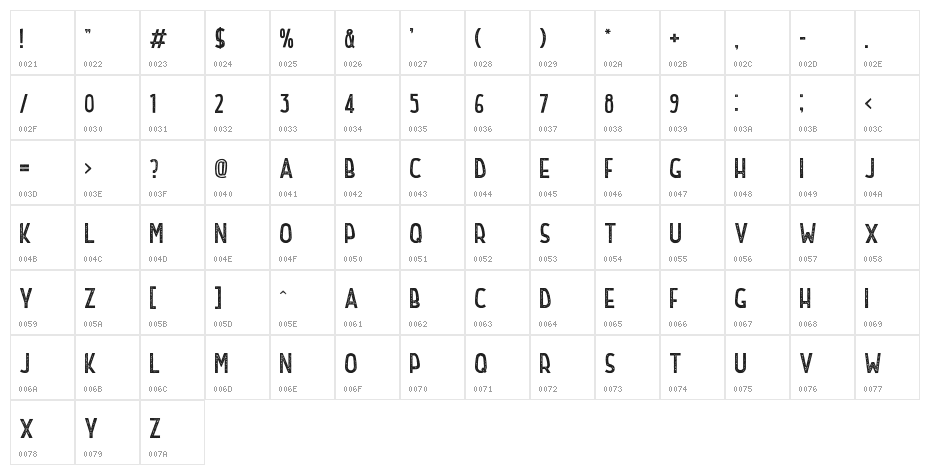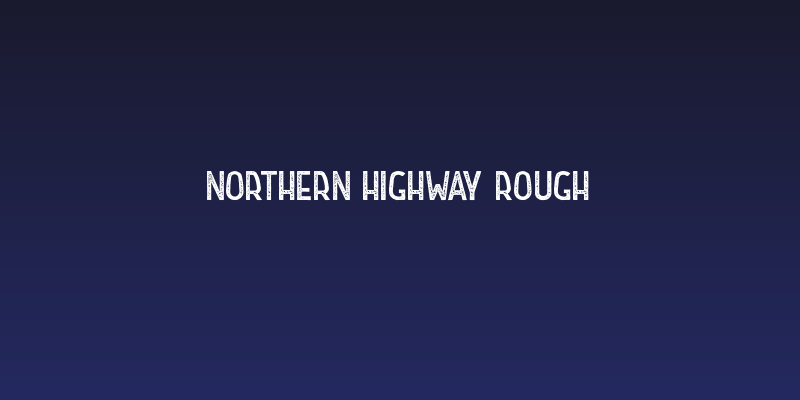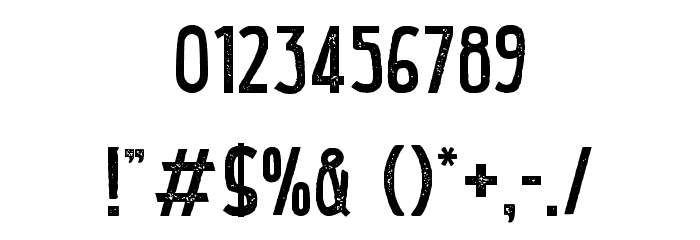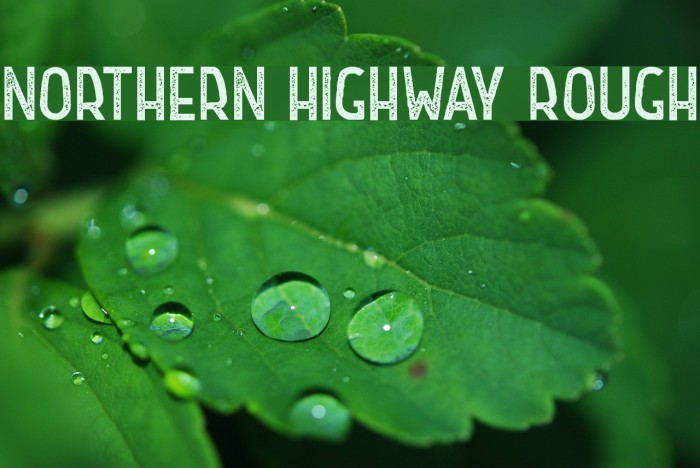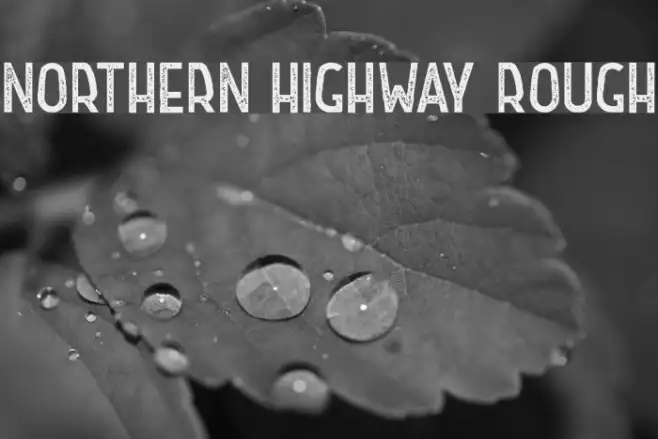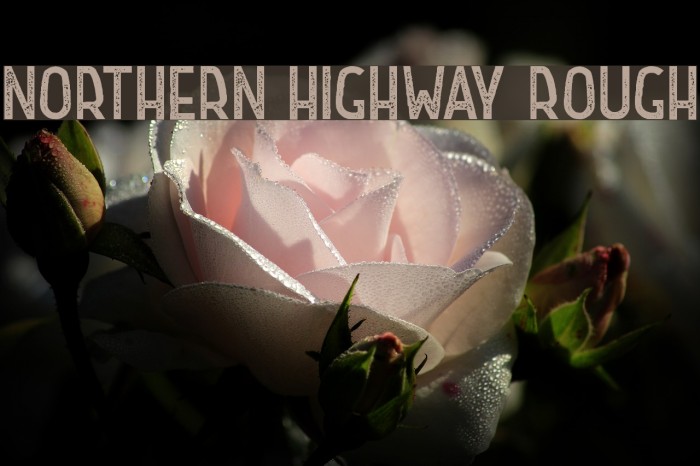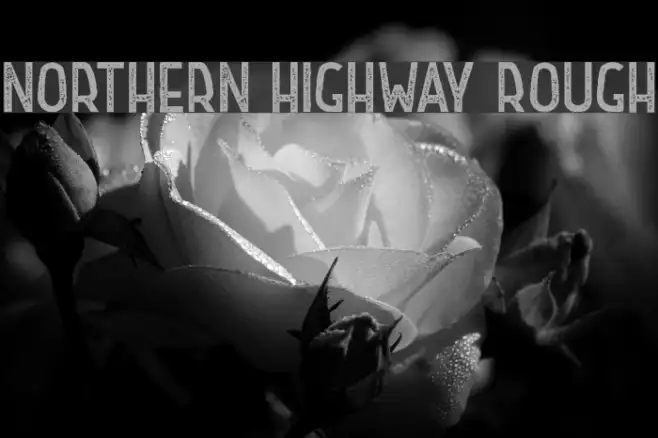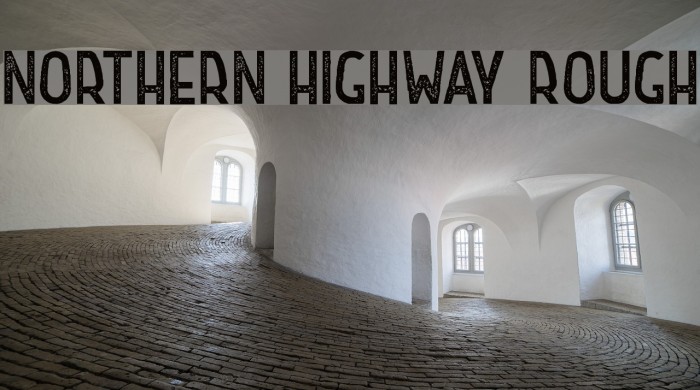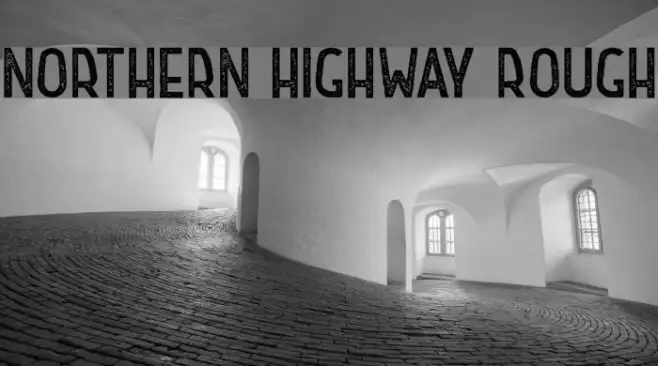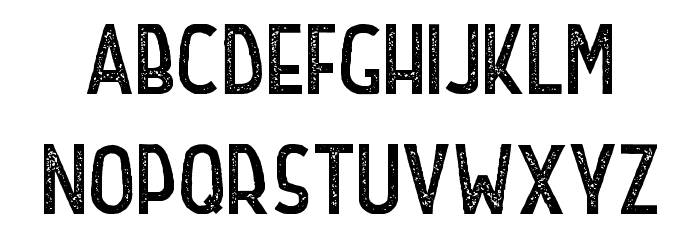
Northern Highway Rough Font
Northern Highway Rough Description
This font features a rugged, distressed texture that gives it a vintage and weathered appearance. The uppercase letters are bold and slightly condensed, with a consistent height that ensures readability. The lowercase letters maintain the same distressed style, offering a cohesive look across all characters. Numbers and special characters are designed to match the overall aesthetic, making them suitable for various design needs. The font's unique texture adds character and depth, making it ideal for projects that require a rustic or handcrafted feel.
| Proposed Projects | Ideal for branding, posters, signage, and any project needing a rustic or handcrafted aesthetic. |